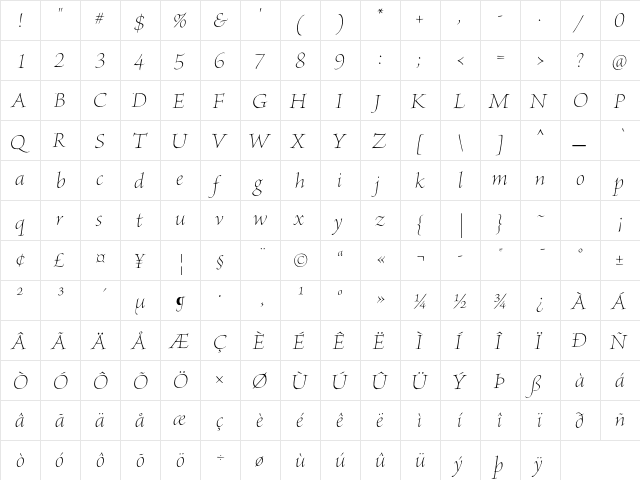
Brioso Pro Light Poster Italic Font Preview
| Designer | Robert Slimbach |
Design Context for Brioso Pro Typeface
Brioso Pro takes a measured approach to typography — its balanced proportions and neutral character make it a reliable workhorse for both digital and print work. The slanted form adds forward momentum and visual energy. Its slender proportions lend an understated elegance to any composition.
Pro Tip: Try Brioso Pro for annotation and caption copy alongside an upright companion — the contrast in angle creates a dynamic but ordered typographic system.